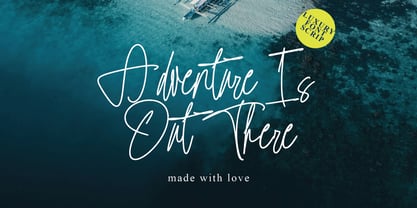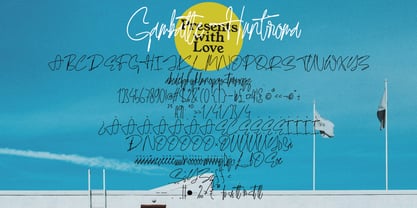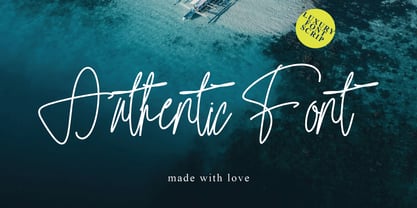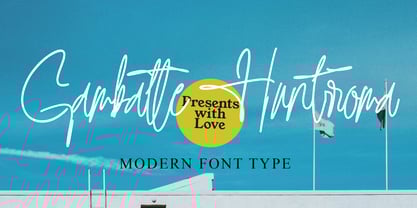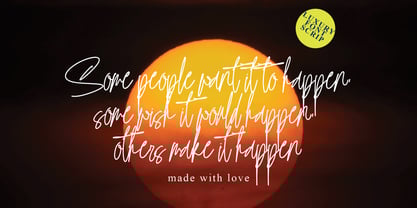
Gambatte Huntrroma
by Pineungtype misinklab
The Gambatte Huntrroma Font Family was designed by Beni Saswita and published by Pineungtype misinklab. Gambatte Huntrroma contains 1 styles.
Gambatte Huntrroma with new style, this font will perfect for many different project ex: quotes, logo, blog header, poster, banding, letter, invitation, stationery, etc...